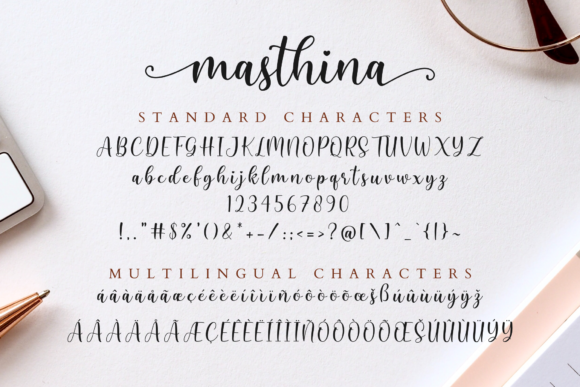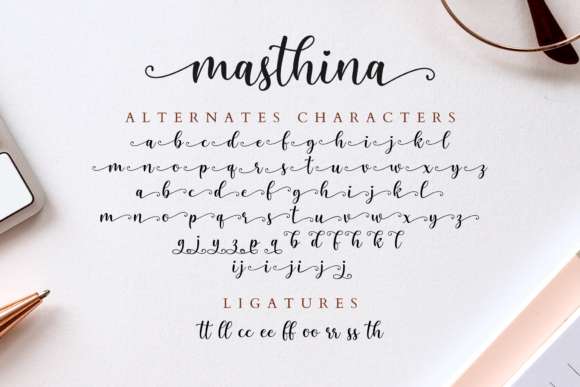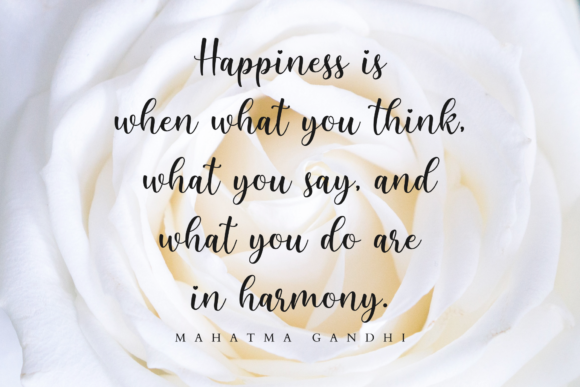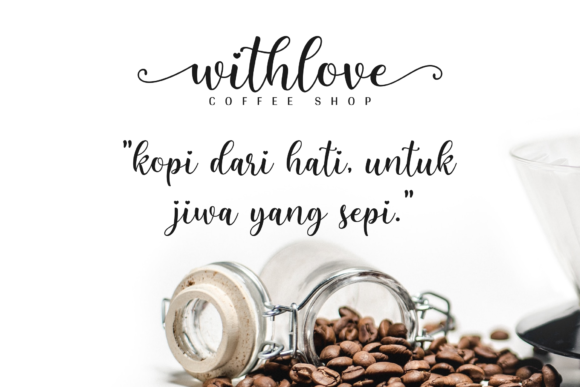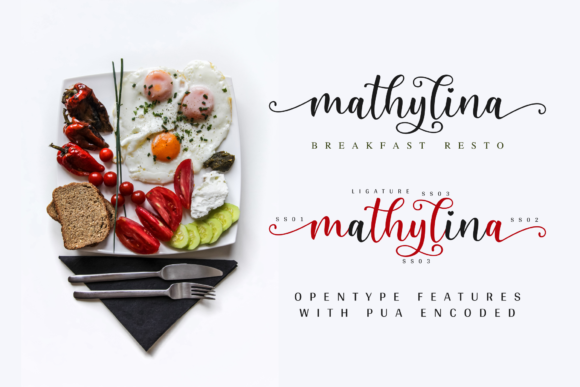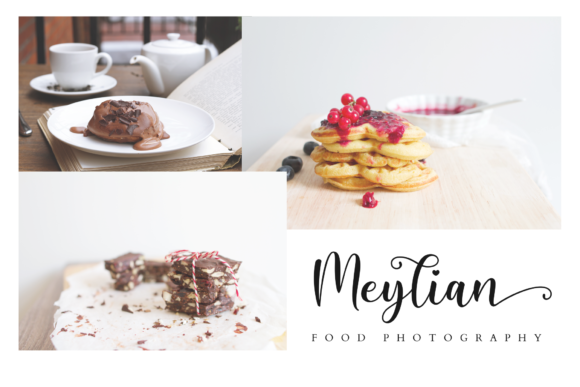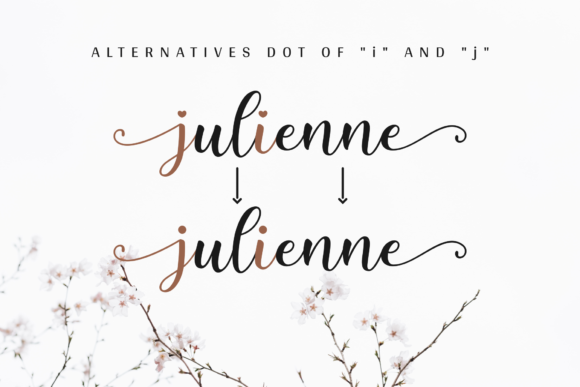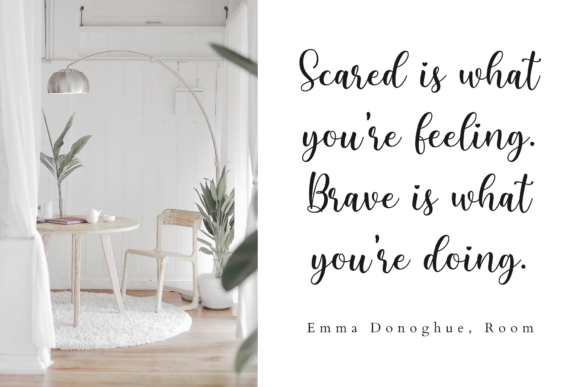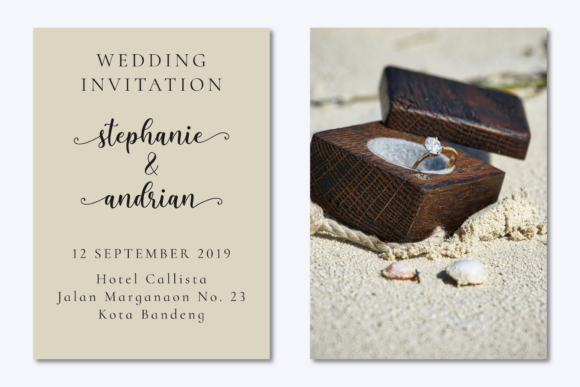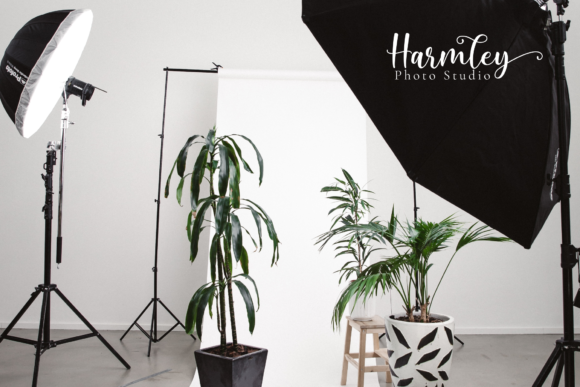
HomeScript FontsMasthina Font Script Fonts Masthina Font FacebookXPinterestWhatsApp Masthina Font Poster 2 Masthina Font Poster 3 Masthina Font Poster 4 Masthina Font Poster 5 Masthina Font Poster 6 Masthina Font Poster 7 Masthina Font Poster 8 Masthina Font Poster 9 Masthina Font Poster 10 Masthina Font Poster 11 About Masthina Font Masthina is a lovely calligraphy typeface with a modern and bouncy style. It features a stunning natural look! DOWNLOAD ON CREATIVE FABRICAThis font is sold and delivered by Creative Fabrica. Font Canyon may earn a commission if you buy through this link. People also explored Back to School Font Halloween Cob Web Font Reading Font Souther Font Simple Glory Font Heart Mono Font Linsela Script Font Amelia Jones Font Monday Phobia Font 327 0 TagsMasthina Font Previous articleBrillante Luna Piena FontNext articleTuesday Sush Font LEAVE A REPLY Cancel reply Comment: Please enter your comment! Name:* Please enter your name here Email:* You have entered an incorrect email address! Please enter your email address here Website: Save my name, email, and website in this browser for the next time I comment. Personal Use Free Angola Beach Personal Use Free Read more about this font Old Linoleum Personal Use Free Read more about this font Bashira Personal Use Free Read more about this font Engine Personal Use Free Read more about this font BLOG The 10 Best Handwriting Fonts to Add Personality to Your Designs 10 of the Best Handwriting Fonts for Adding Personality to Your Designs There will undoubtedly be no other better choice than handwriting fonts to give... Free vs Paid Fonts: Why Investing in Premium Fonts Is Worth It Fonts That Capture the Spirit of New York City Free Fonts Risk: Why Free Fonts Can Be Dangerous for Designers